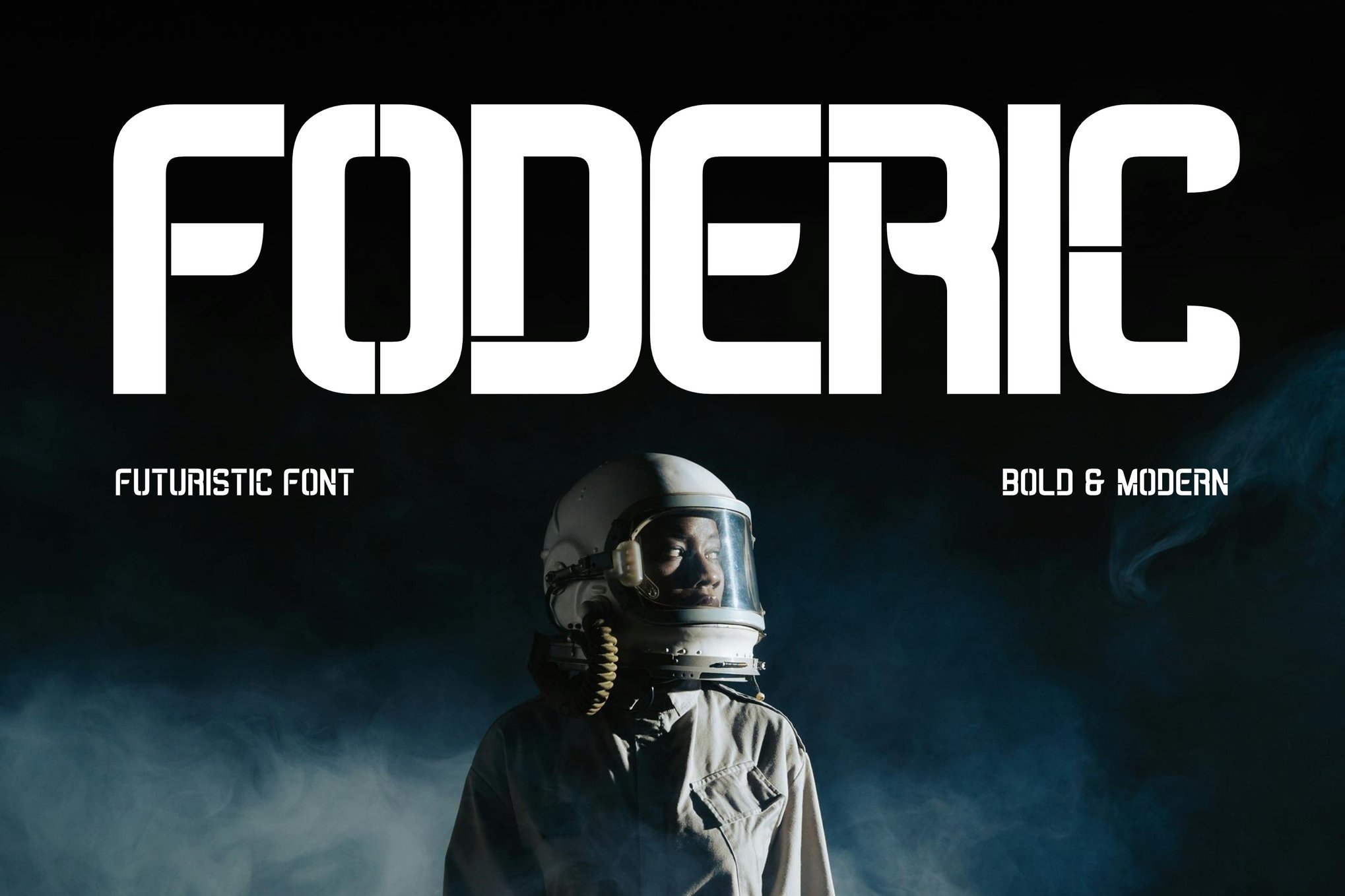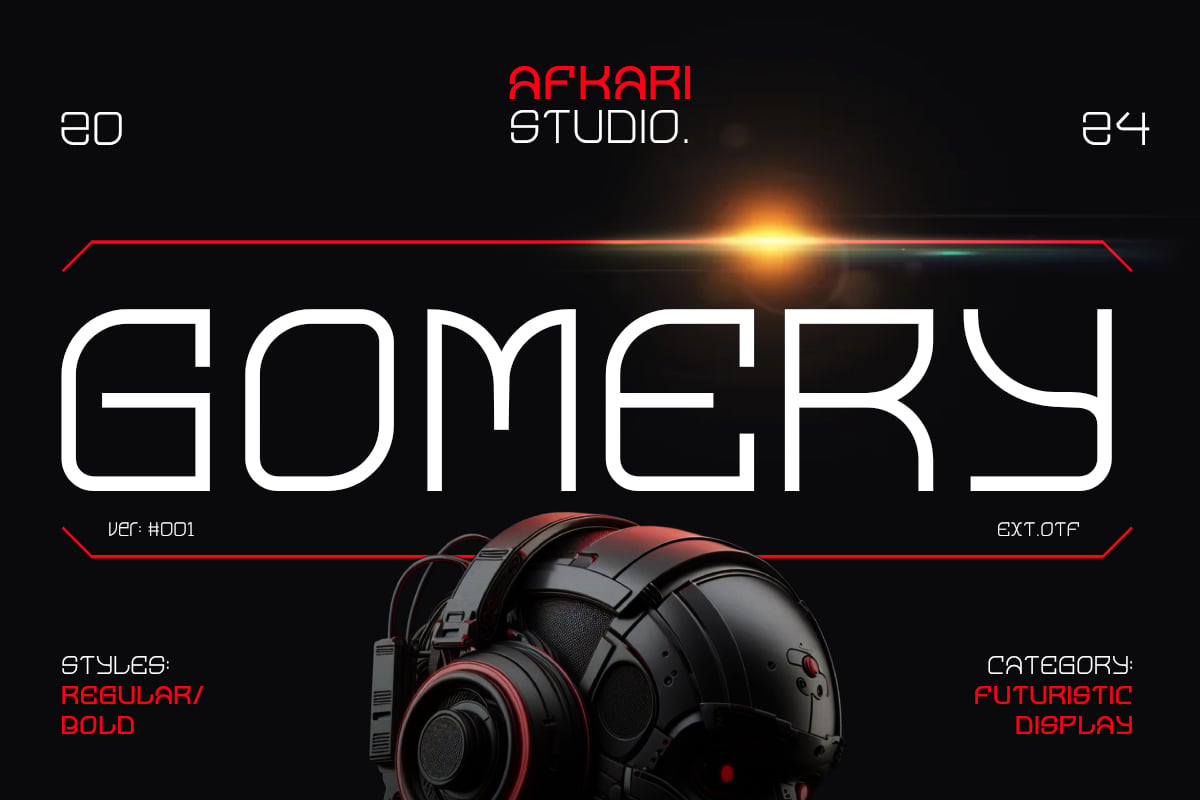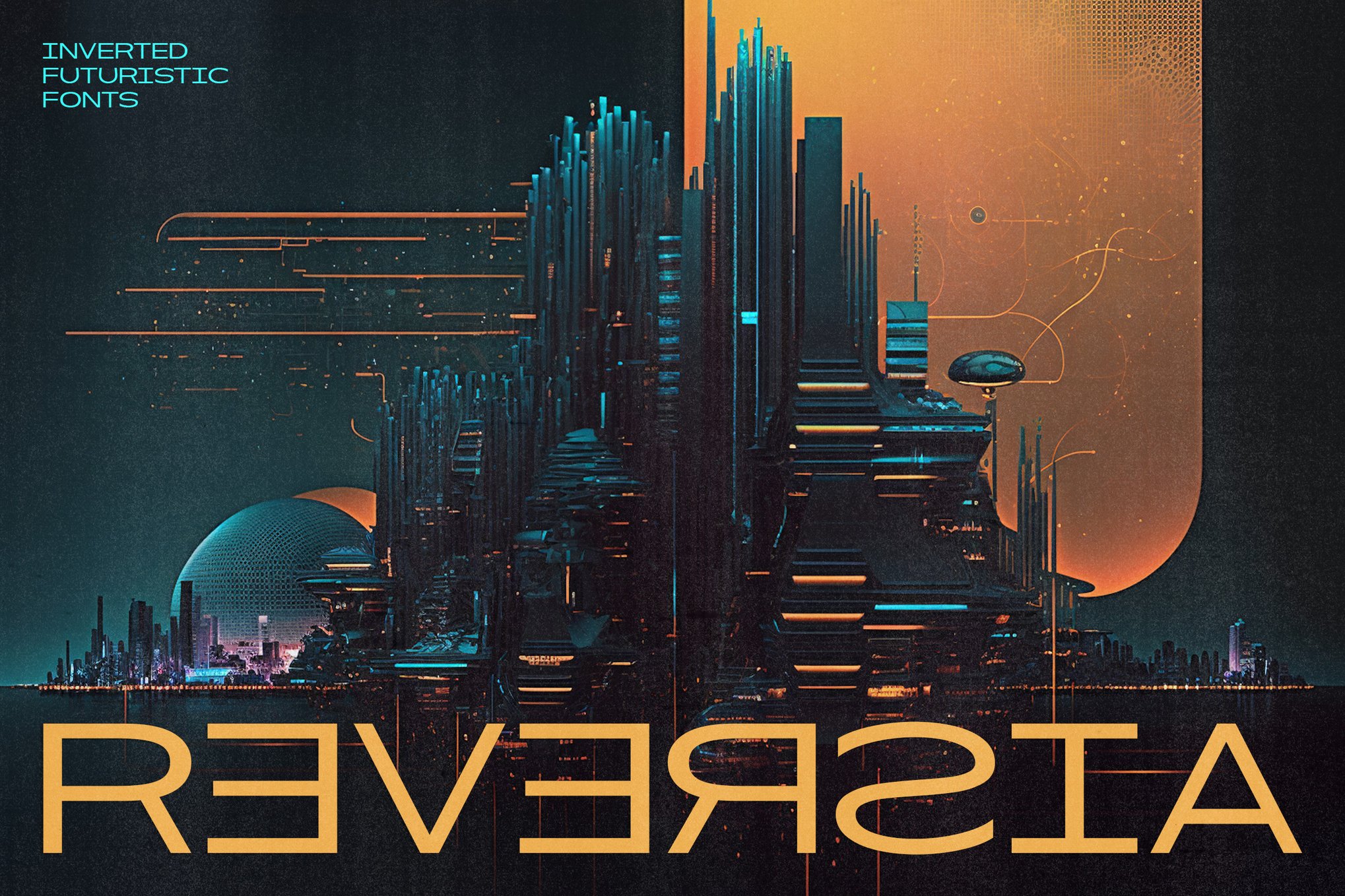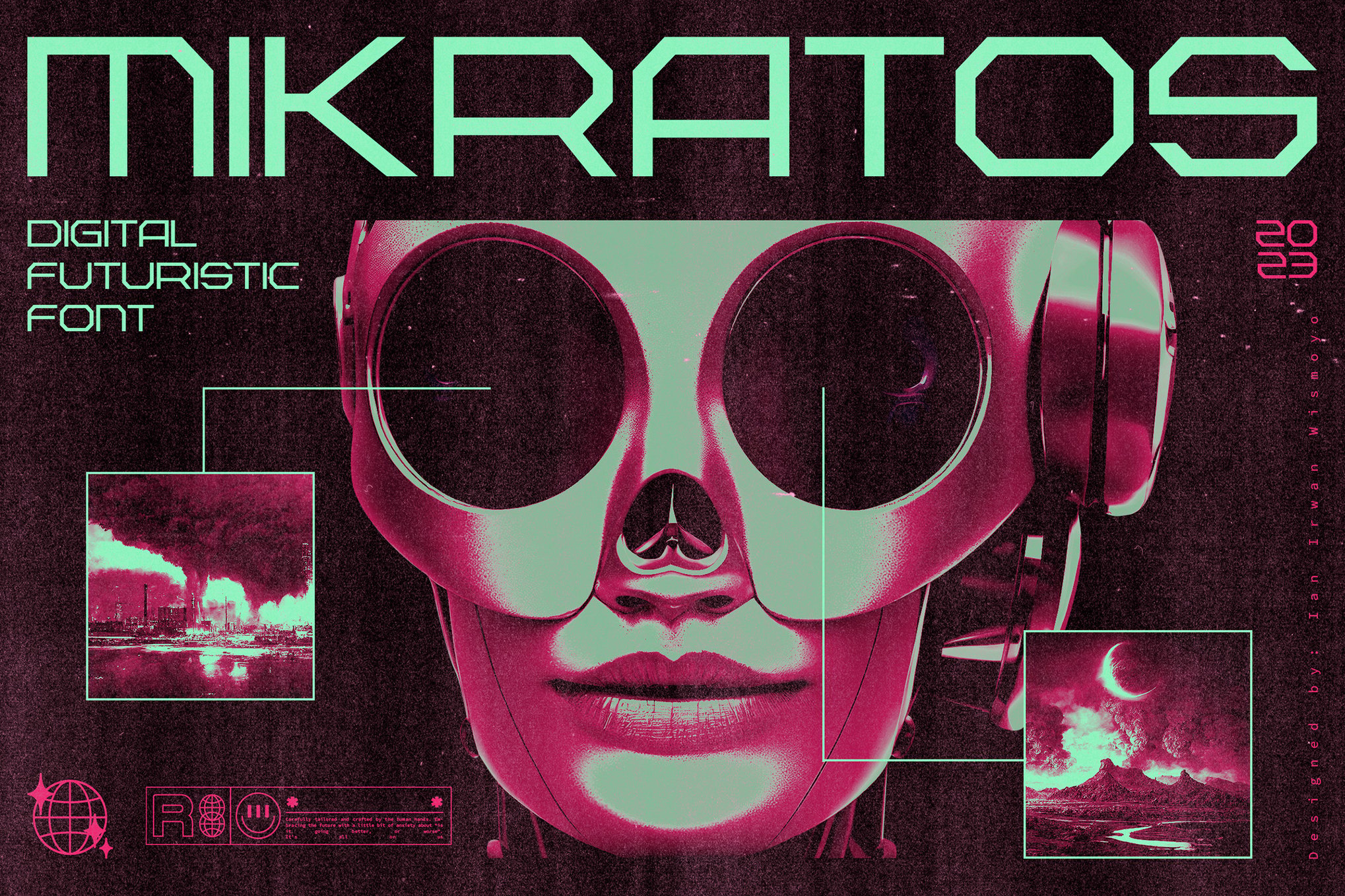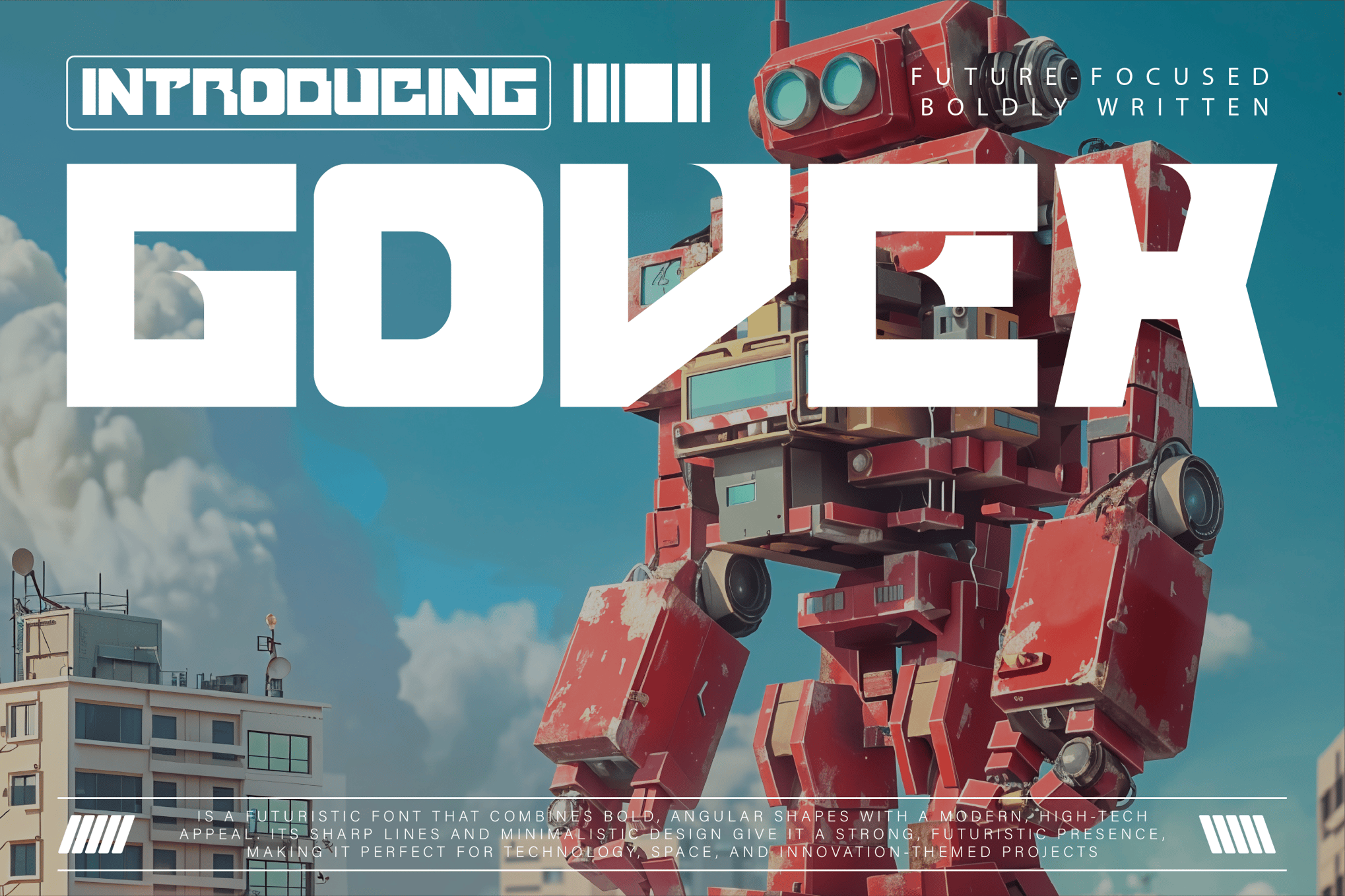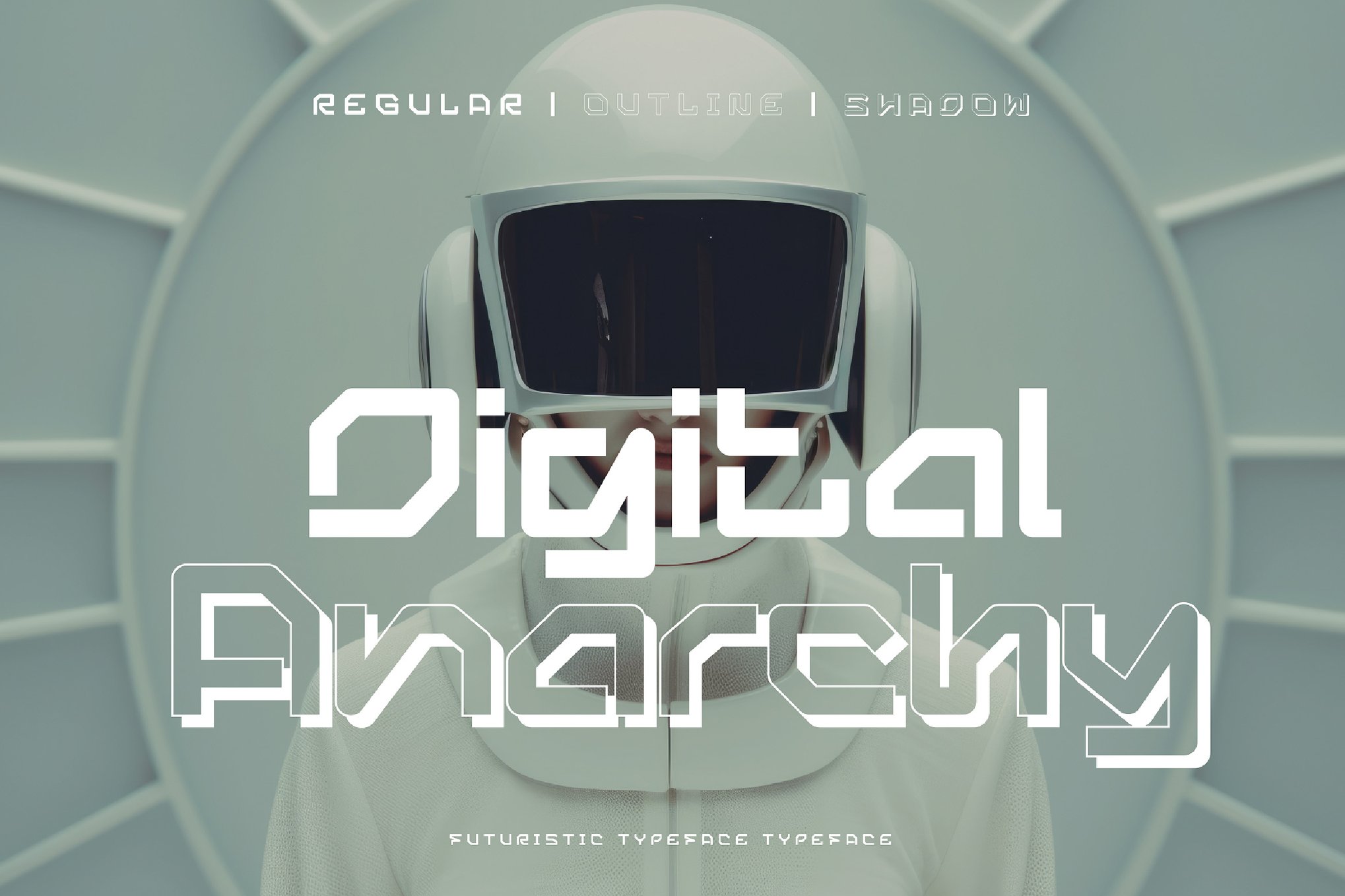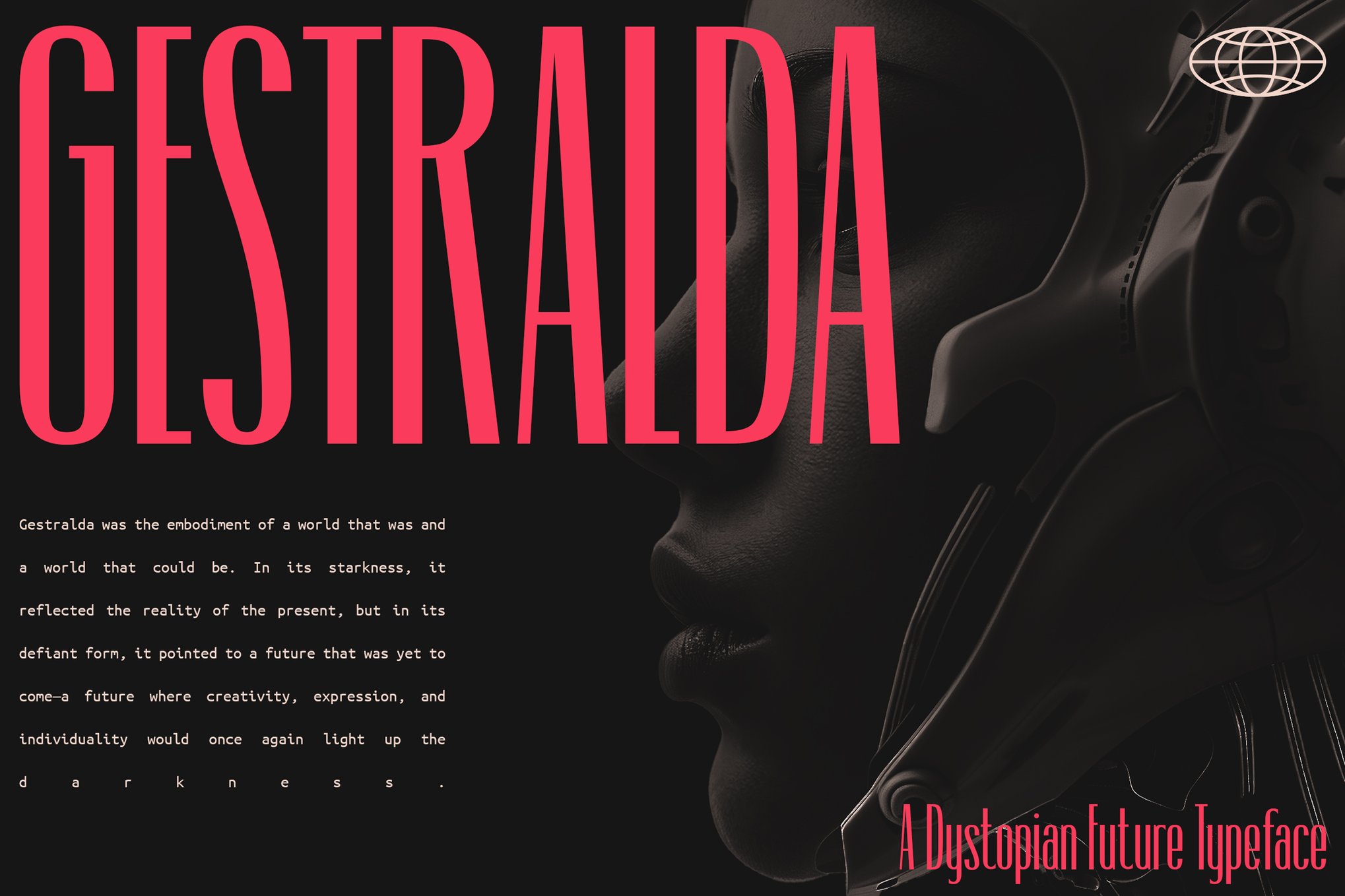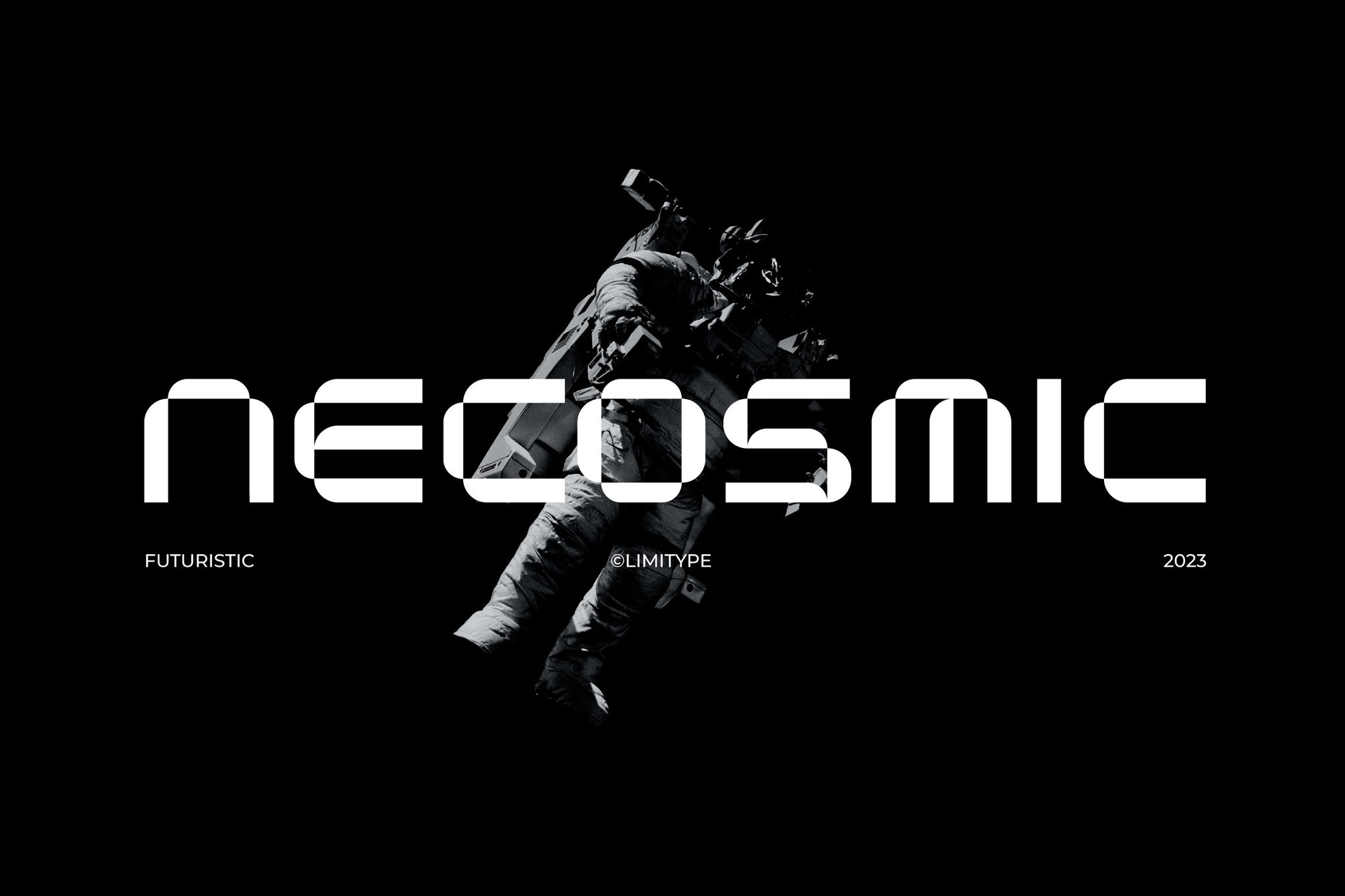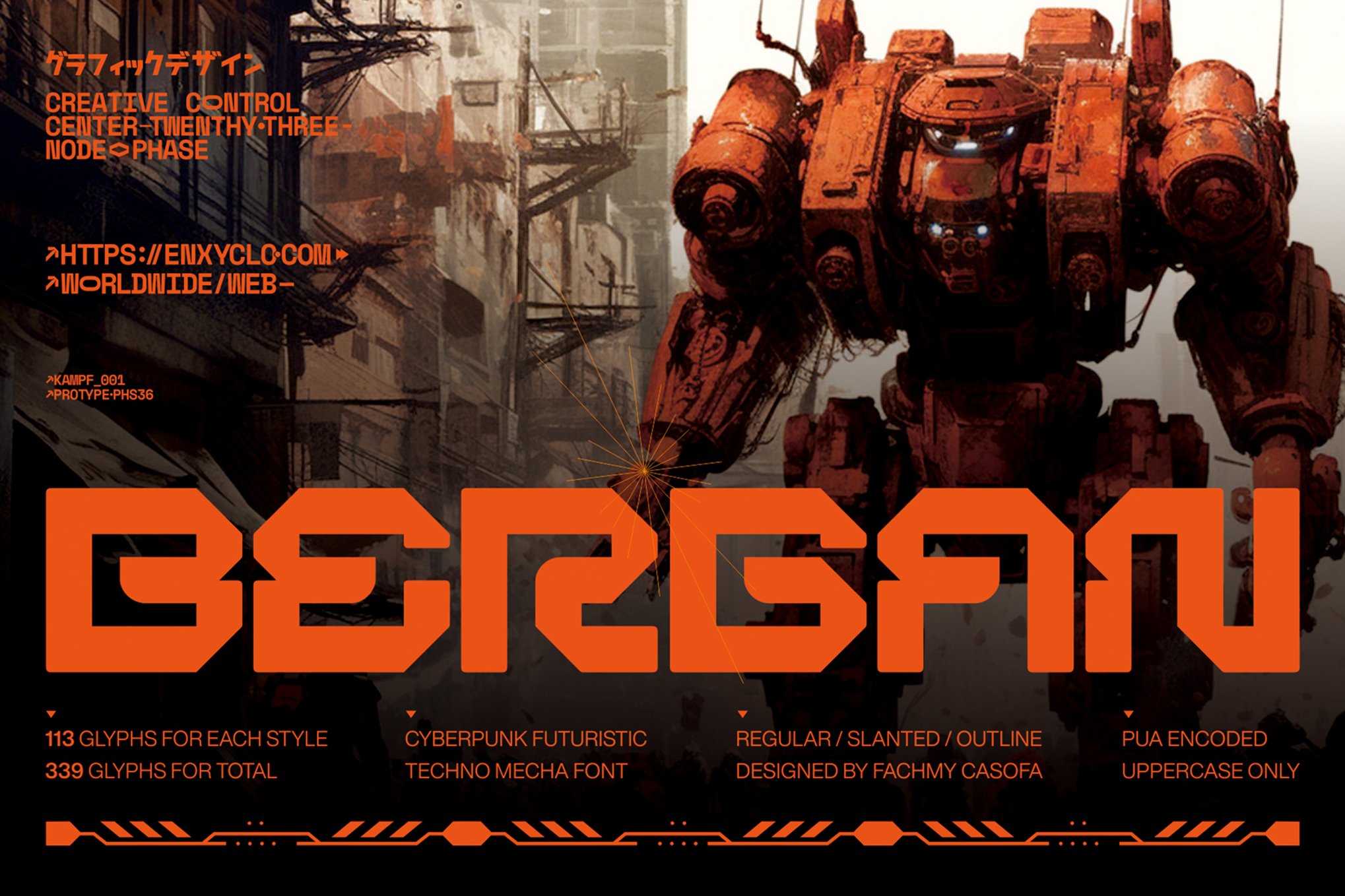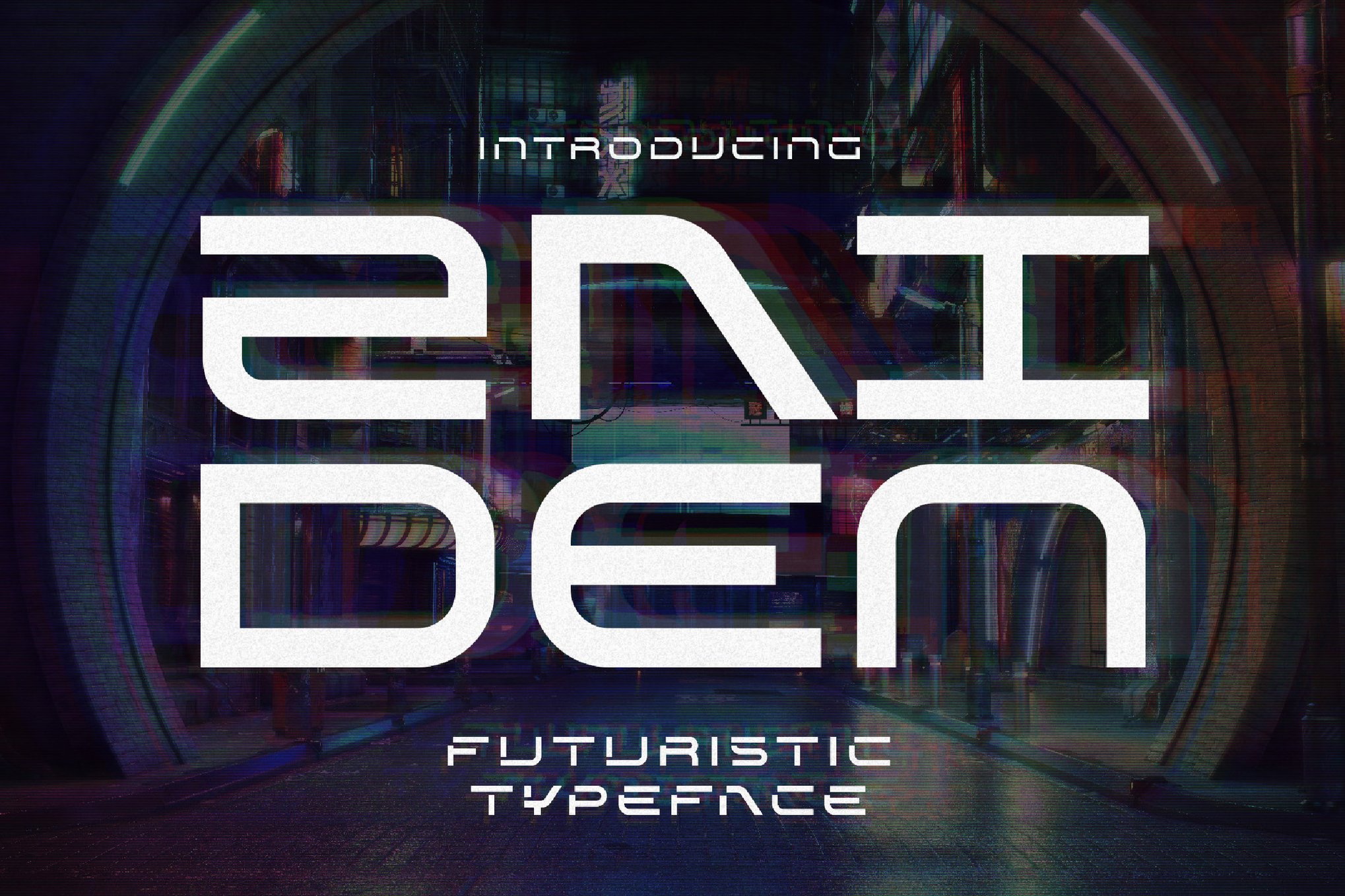
23 Dystopian Fonts for Dark Sci-Fi Projects
Every dystopian world has a visual language, and the right font can make that world feel real.
Here you’ll find typefaces inspired by oppressive regimes, underground resistance groups, malfunctioning tech, and fragmented communication.
Their rough edges and distorted shapes echo the chaos and tension of a dark future.
These typefaces use angular structures, glitch details, and industrial influence to create lettering that feels intense and imaginative.
They’re bold enough for titles, but textured enough for atmospheric layouts. Have a look.
Foderic is a multifunctional, futuristic dystopian font. Characterized by its bold and edgy appeal, this font is ideal for a vast array of applications, including everything from typography to cyberpunk and even creative expressions. This font features uppercase and lowercase Latin characters, including numbers and special symbols.
Gomery is a unique, dystopian font that fuses clean, geometric lines with striking curves to create an intriguing futuristic aesthetic. Ideal for digital interfaces, tech-based branding, and forward-thinking design, this font injects a sense of modernity into various projects. It includes a complete set of uppercase, lowercase letters, numerals, and punctuation, unique alternates, and ligatures.
Reversia is a distinctly dystopian font that brings an unconventional twist to your design projects. As an expanded, futuristic styled font, Reversia presents a bold and brave typography choice for those ready to buck tradition and elevate their design aesthetics. Suitable for branding, advertising, or artistic use, Reversia promises to set your designs apart.
Mikratos is a digital dystopian font that seamlessly bridges the gap between vintage retro-futurism and the contemporary trend. Drawing inspiration from sci-fi movie interfaces and retro game visuals, Mikratos shines in various fields such as logos, gaming, music videos, album art, fashion, merchandise, and even packaging.
Govex is a unique, futuristic font characterized by bold, angular shapes encapsulating a modern, high-tech aesthetic. Its sharp lines and minimalistic appeal lend a powerful futuristic ambiance, ideal for projects related to technology, space, and innovation. With TTF, OTF, WOFF, WOFF2 formats available, and free future updates, it promises to be a resourceful creative asset.
Digital Anarchy is a bold, futuristic font that screams dystopian aesthetic. Its unique, razor-sharp edges combined with its sleek design evoke a world dominated by technology, perfect for visionary projects aiming to make a statement.
Gestralda is inspired by classic sci-fi movies and dystopian worlds. Each letterform thoughtfully illustrates a future dominated by technology, making this font ideal for high-tech brands or futuristic projects. Designed to fit bold messages into compact spaces, Gestralda is versatile, enhancing logos, esports, album art, digital content, and more.
For designs themed around technology, the future or outer space, Necosmic is an excellent choice. This futuristic dystopian font encapsulates innovation in every character, effortlessly bringing a modern touch to your visuals. Complete with multilingual capabilities, all-caps font, symbols, and OTF files, it presents sophisticated and inspiring typography, ideal for making striking impressions.
BERGAN is a riveting cyberpunk dystopian font that gives a futuristic, robotic edge to any project. It’s a True Type, Open Type, and Web Open format font, offering three styles – Regular, Outline, and Slant – with 113 distinctive glyphs for each. Its comprehensive range covers uppercase letters, numerals, punctuation, and symbols, ensuring a dynamic and inspiring design experience.
Zaiden is a creatively designed dystopian display font with its influences rooted in sci-fi films and video games. Its unique all-caps letterforms and minimalist aesthetic make it an ideal font for various design uses such as packaging, logos, book covers, and game presentations. Additionally, the font offers distinctive lowercase letters, enabling unique outcomes.
Digitron Futures is a futuristic, tech-inspired font that exudes a modern, sophisticated feel. Every character is meticulously designed with sharp geometric lines and digital styling, creating a unique appeal ideal for sci-fi branding and high-tech appearances. This font produces high-impact layouts perfect for movie posters, tech startup logos, and modern magazine covers.
Fear Robot offers a powerful visual presence, with its sleek lines and bold design. Perfect for tech-based projects, it channels the gritty vitality of a dystopian atmosphere. Available in Zip format, it includes TrueType, OpenType, Woff, and Woff2 Font files, with regular weight.
Atomic Blip offers the perfect blend of retro and futuristic. This font family boasts four unique styles – rounded, square, dashed, and outlined – suitable for a huge array of design applications. Your purchase comes complete with several file formats and extras in high-resolution PSD, AI, EPS, and PNG.